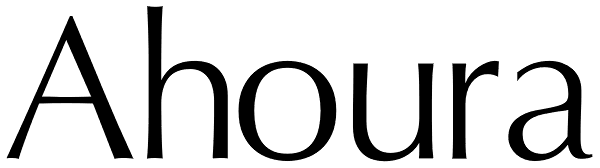
Ahoura
The Ahoura font family, designed by Naghi Naghashian, was developed considering specific research and analysis on Arabic characters and definition of their structure. The Ahoura innovation is a contribution to modernisation of Arabic typography...